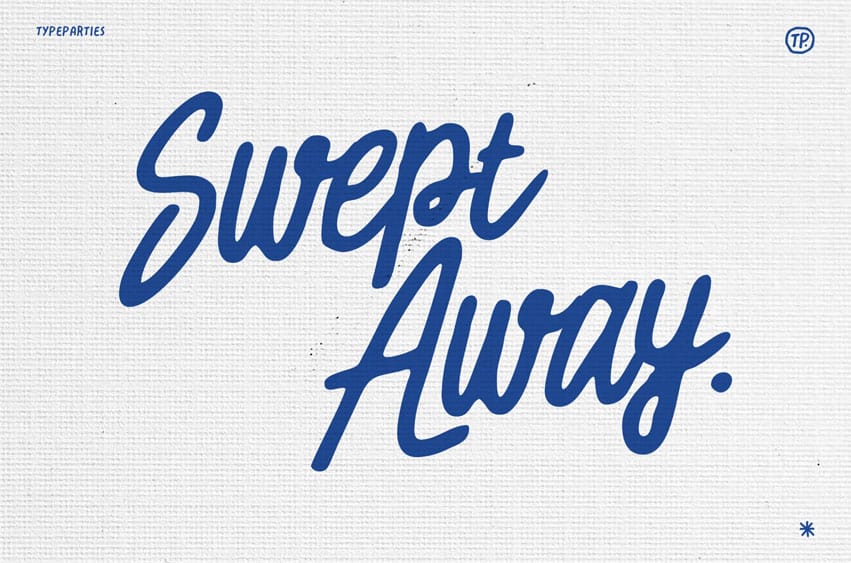
Swept Away Duo Font is a typeface designed to mimic the fluid, natural strokes of handwritten text. It often features elegant, flowing lines, varying thicknesses, and organic curves that give it a personal, expressive feel.
These fonts are versatile and can range from casual and playful to refined and sophisticated, making them perfect for adding a personal touch to projects like wedding invitations, greeting cards, logos, social media posts, and branding materials. The imperfections and irregularities in handwritten script fonts add to their charm, creating a warm and approachable aesthetic that resonates with authenticity.